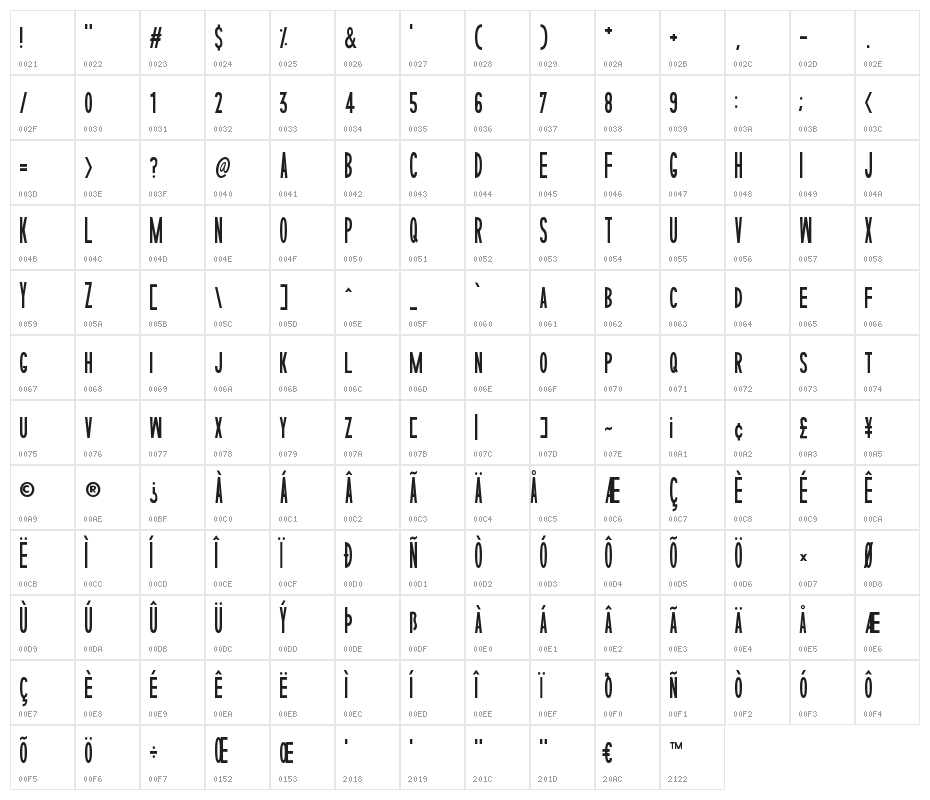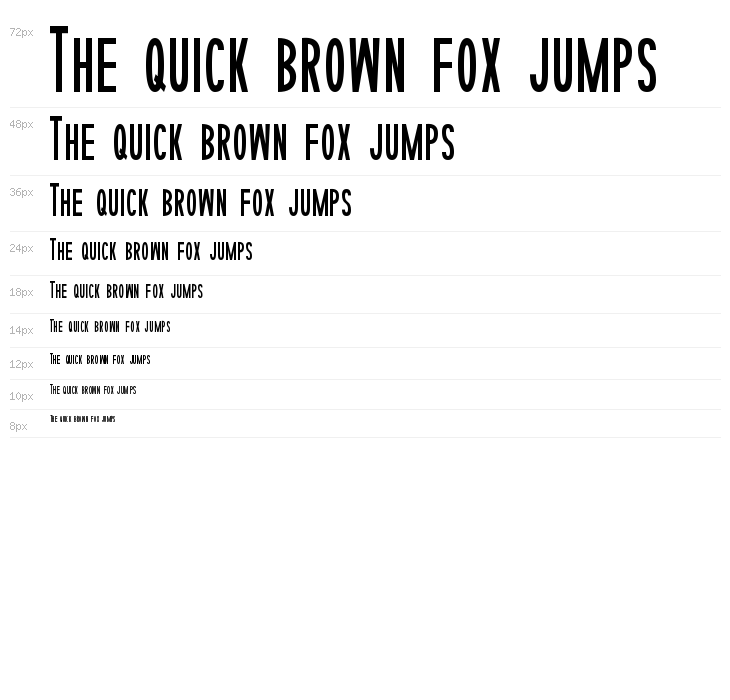
Sophisticated Slims Tight Font
Sophisticated Slims Tight Description
This font features a tall, narrow design with a modern and sleek appearance. The characters are elongated, giving them a sophisticated and elegant look. The vertical strokes are consistent in width, providing a uniform and clean aesthetic. The font maintains a high level of legibility despite its condensed form, making it suitable for various design applications. The uppercase and lowercase letters are well-proportioned, and the numerals align seamlessly with the overall style. Special characters are included, enhancing its versatility for different uses.
| Proposed Projects | Ideal for fashion magazines, luxury branding, modern posters, and elegant invitations. |